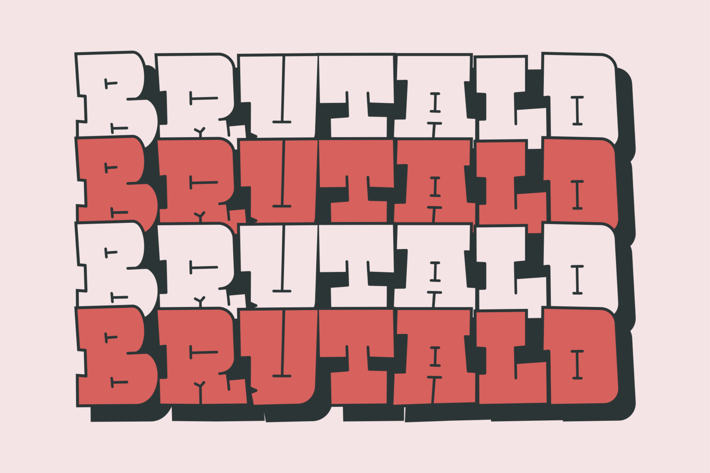
Brutald Bold Typeface
Inspired by a graffiti font with bold features, the combination of slabs makes the font seem funky and slightly cartoonish, great for large-scale use.